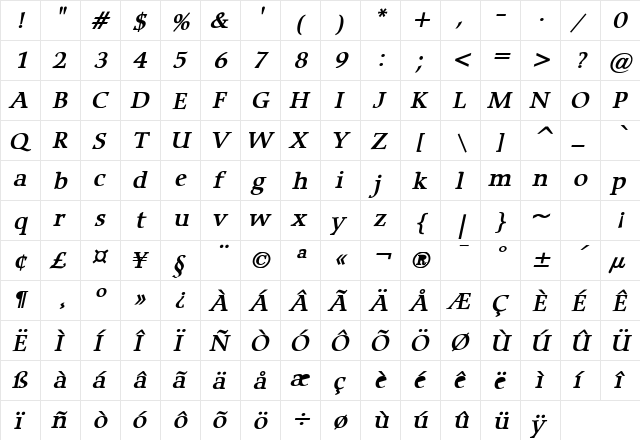
Carmine Bold Italic
Design Context for Carmine Typeface
Carmine takes a measured approach to typography — its balanced proportions and neutral character make it a reliable workhorse for both digital and print work. The slanted form adds forward momentum and visual energy. The heavy weight commands attention and anchors typographic hierarchies.